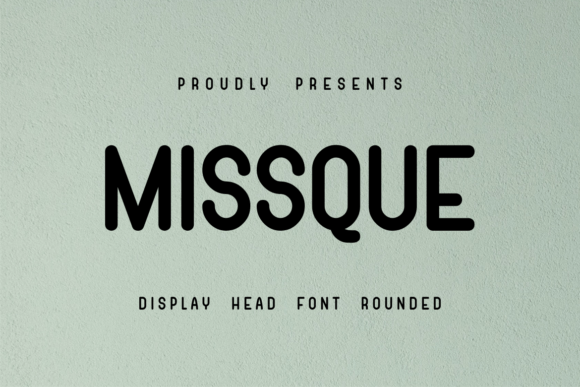
Introducing Missque Font - Your Powerful Passport to Creative Excellence!
In the vast realm of typography, where letters dance and words ignite imagination, there exists a font that commands attention and leaves an indelible mark - Missque Font. This extraordinary display font, crafted with meticulous precision by Monoletter, is not just a collection of glyphs; it's an artistic masterpiece that transforms your digital creations into captivating visual experiences.
Missque Font captivates with its soft yet bold persona, characterized by rounded ends and a hint of techno flair. It's a harmonious blend of diverse styles, coming together to form a font that's both distinctive and versatile. With Missque Font as your creative companion, you'll discover endless possibilities to make your designs shine.
Dive into a world of boundless creativity with Missque Font. Whether you're a seasoned designer seeking to elevate your projects or a novice just starting your typographic journey, Missque Font is your trusted guide. Its bold strokes and playful curves add a touch of intrigue to logos, posters, social media graphics, and more.
Unlock the power of Missque Font and watch your designs come alive! This remarkable font is not just another tool in your creative arsenal; it's an extension of your imagination, a gateway to unleashing your inner artist. Let Missque Font ignite your passion for design and elevate your projects to new heights of visual splendor.
Don't settle for ordinary fonts that blend into the background. Embrace the boldness, the uniqueness, the sheer brilliance of Missque Font. Its carefully crafted characters are like tiny stars in a vast digital sky, ready to illuminate your designs and leave a lasting impression on your audience.